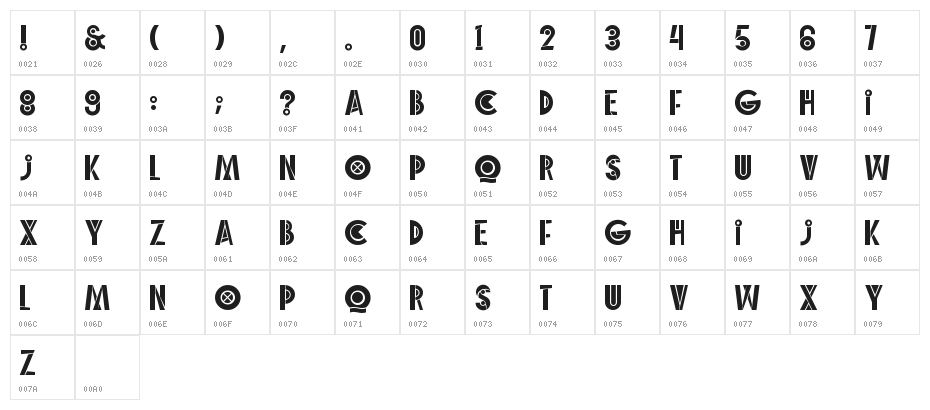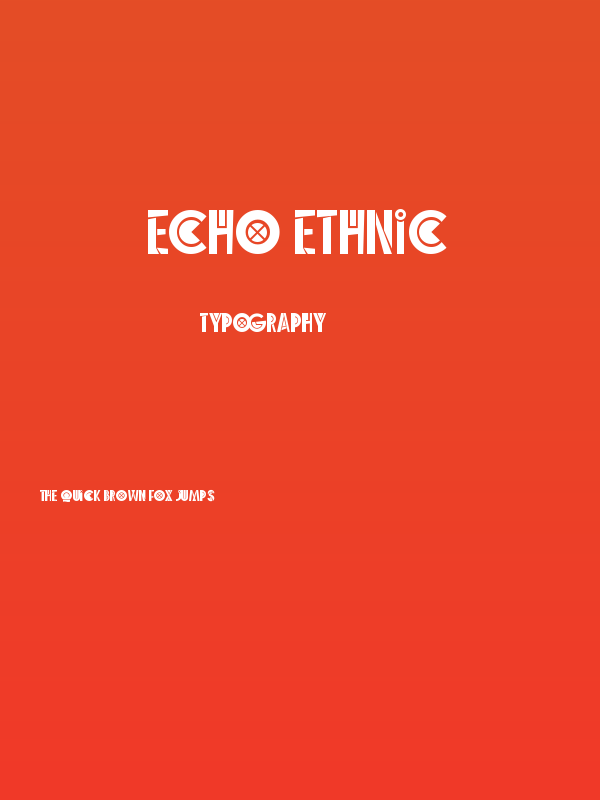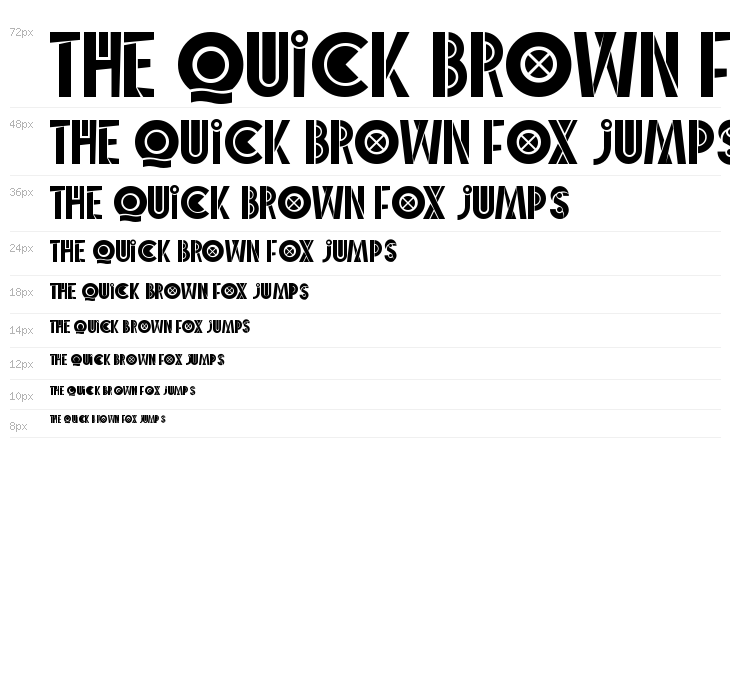
Echo Ethnic Font
Echo Ethnic Description
This font features a bold and striking design with a unique ethnic-inspired aesthetic. The characters are crafted with geometric shapes and intricate patterns, giving it a distinct and artistic flair. The uppercase letters are particularly eye-catching, with some incorporating circular motifs and angular cuts. The numbers and special characters maintain this decorative style, ensuring consistency across the font. This typeface stands out with its creative use of negative space and bold lines, making it ideal for projects that require a strong visual impact.
| Proposed Projects | Ideal for cultural event posters, artistic branding, unique packaging designs, and creative digital artwork. |